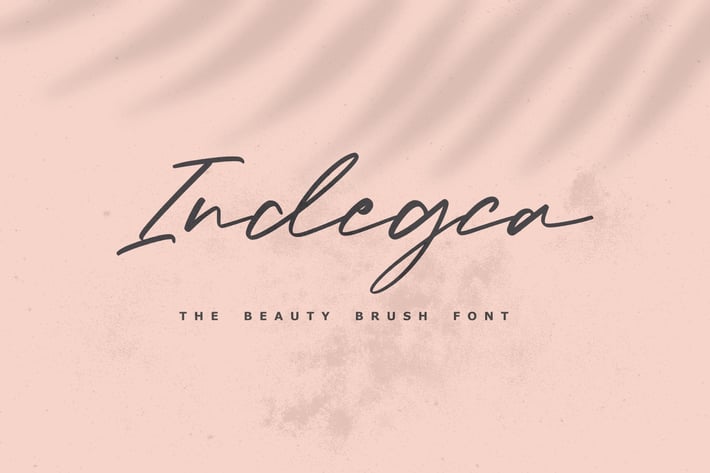
Indegca - The Beauty Brush Font
Indegca - The Beauty Brush Font, every single letter has been carefully crafted to make your text looks beautiful. it's perfect for logos, name card, magazine layouts, invitations, headers, or even large-scale artwork.
- Indegca font including upper & lowercase characters, numerals and more of symbols.